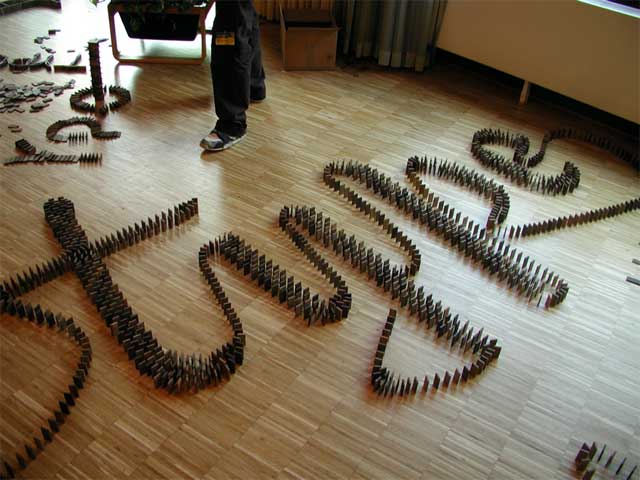
Here you can see some type done in the workshops. To get more info about a specific type/result, just click on 'more about this' under the picture. It will link you directly to the workshop, where this type was developed.
Domino type. Actually the biggest type domino ever done, build out of more then 13.000 single hand cut domino stones. -